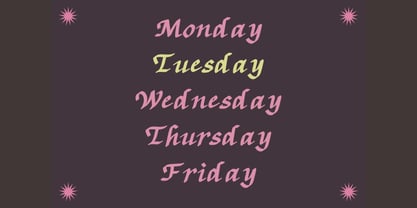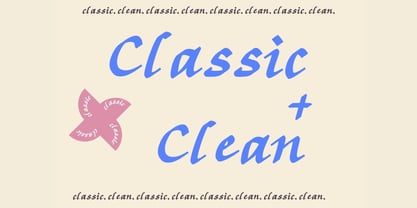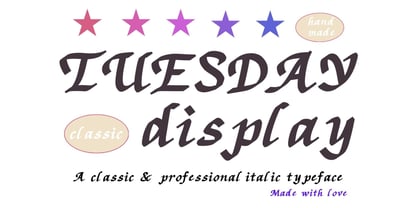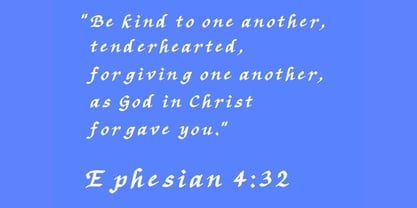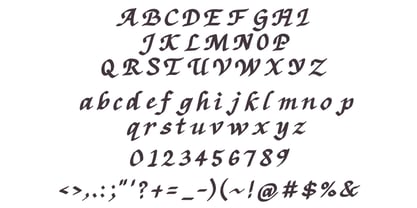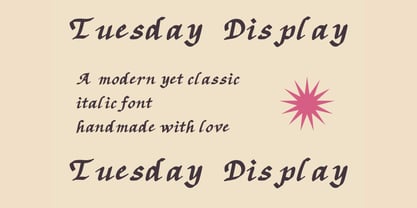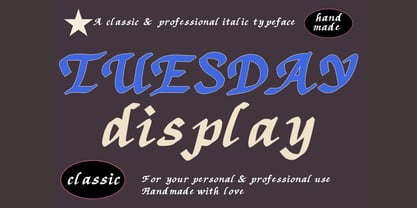
Tuesday Display Classic Italic
The Tuesday Display Classic Italic Font Family was designed by Eryn Rose Tomlinson and published by Eryn Rose Design. Tuesday Display Classic Italic contains 1 styles. More about this family
Tuesday Display is a hand-drawn typeface that embodies a classic italic style with a modern twist. This font exudes a nostalgic charm while maintaining a contemporary feel. It features clean accents and elegantly italic letters that are visually pleasing. The warmth of a human touch is evident in its design, making it a delightful choice for various applications. Perfect for display purposes, product titles and descriptions, logos, website design, books, magazines, and stationery, this versatile font allows for creative freedom in your designs. Enjoy the process of designing with this unique typeface!
Eryn Rose, a graduate of the Rhode Island School of Design, is a multifaceted artist specializing in illustration, graphic design, and type design. She skillfully blends modern and classic typography, leveraging her fine art and design expertise. Each piece of her typography is unique, ensuring that it cannot be replicated or found elsewhere. Eryn's typography is artfully crafted, infusing warmth into her designs that only a human touch can provide. Her work resonates across various industries, including editorial, tech, and retail, setting her apart in the competitive market with her signature style and design philosophy.